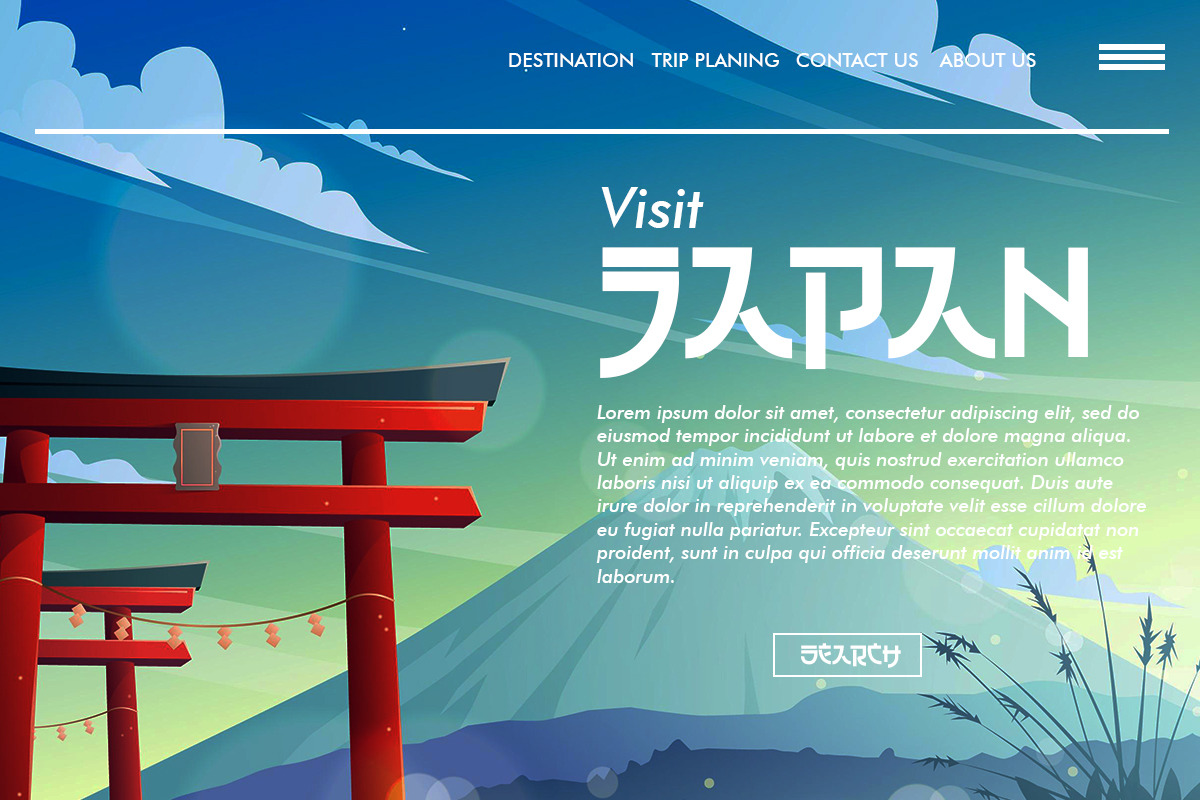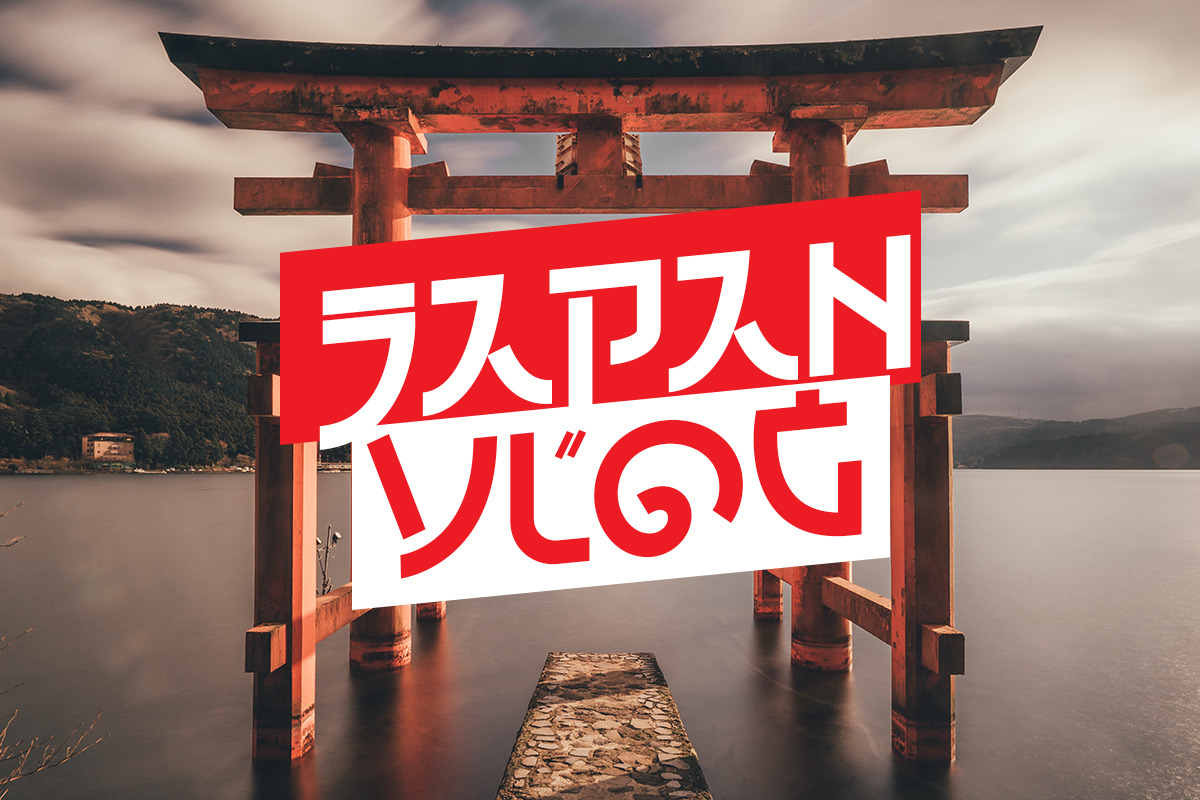
Morioka - Japanese Font
Morioka Japanese font took katakana shape, and take it to the modern fast world. With cut out on the inner connection, emphasize the fast and full action world we're facing.